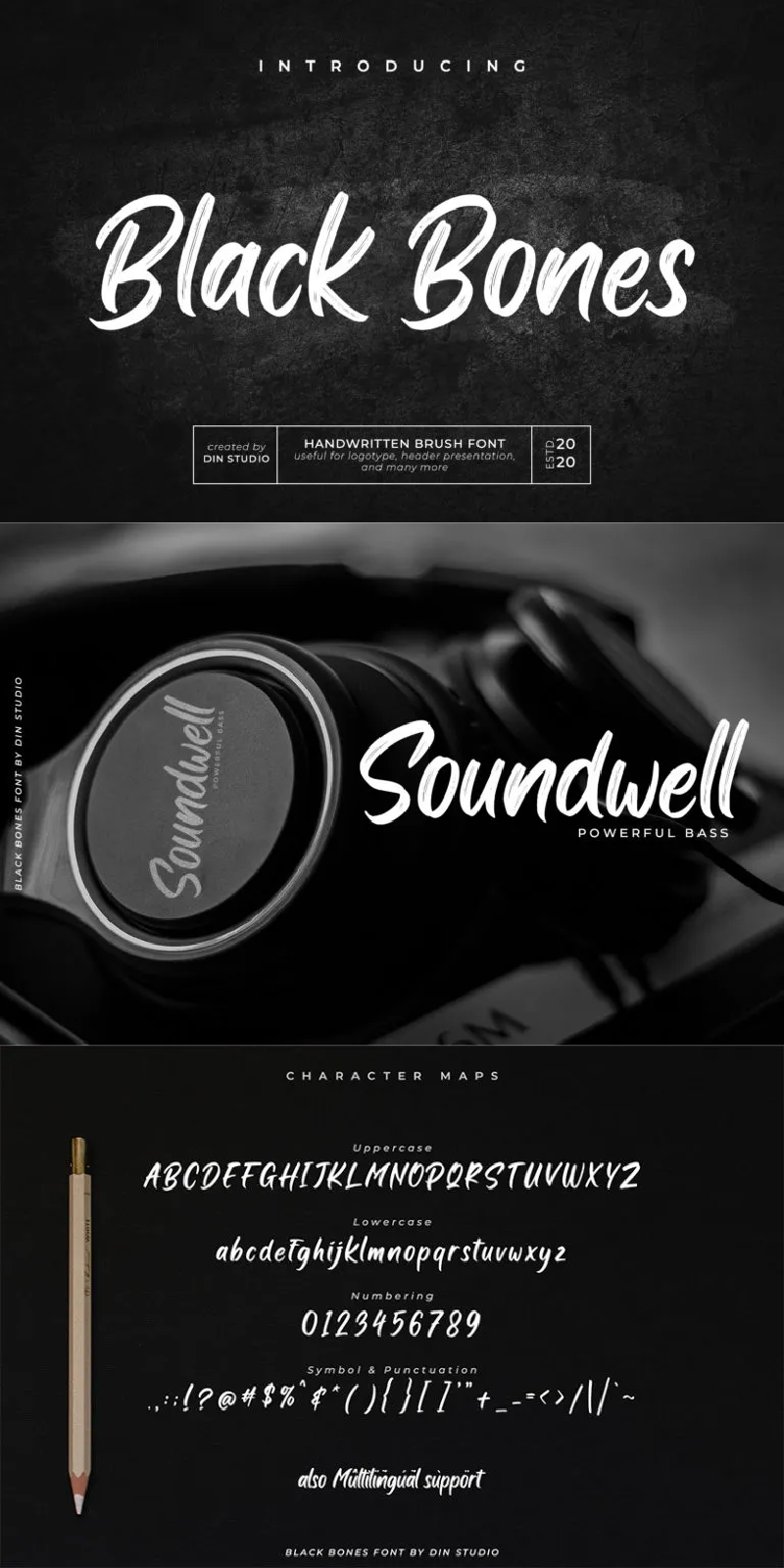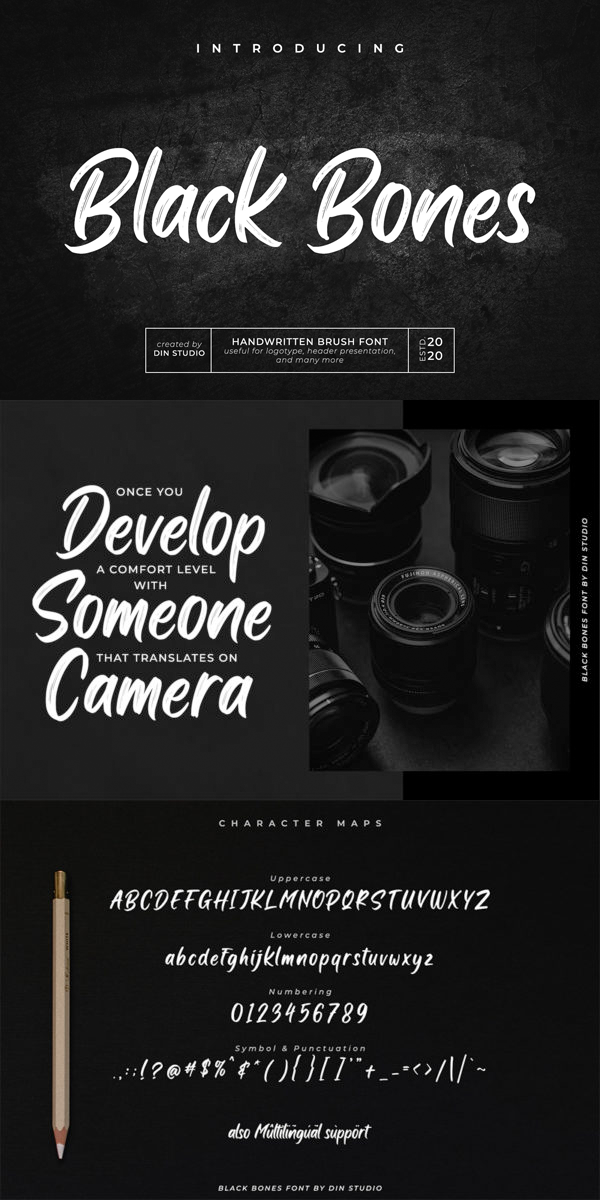
Black Bones Font
About Black Bones
Black Bones is a classy script font combined with brush textured handwritten styles which will make your design projects more powerful. It is made for any professional project brandings best used for logos, brandings, and quotes. Every letter has a unique and beautiful touch. See the previews above to get some inspiration on how you can use them. Happy designing!